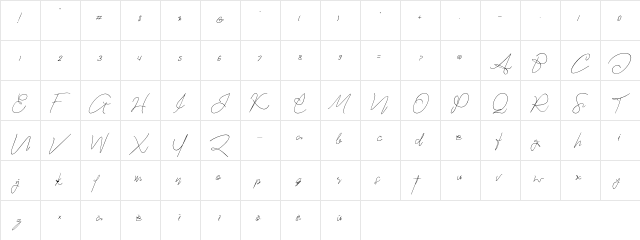
Hartford Regular
| Foundry | Creativework69 |
| Designer | Daddi Daryawan |
Design Context for Hartford Typeface
Hartford is a composed and adaptable typeface that performs quietly and consistently across a wide range of design contexts.